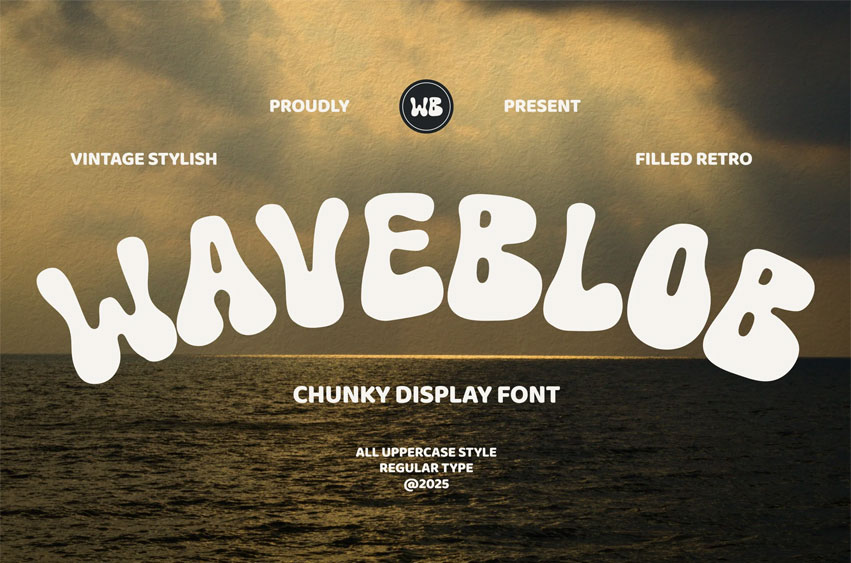
Waveblob Font
Waveblob Font is suitable for flyers, posters, novels, letterheads, or any design requirements you want to be awesome.
It will certainly amaze your readers.